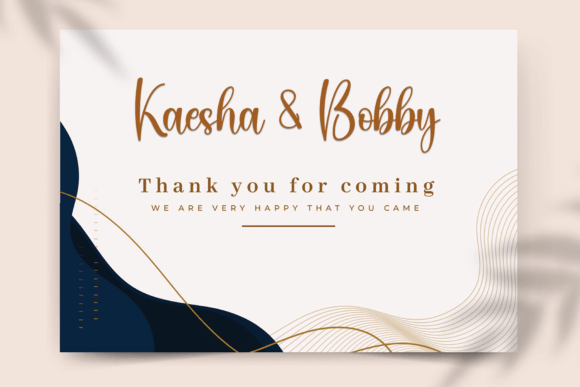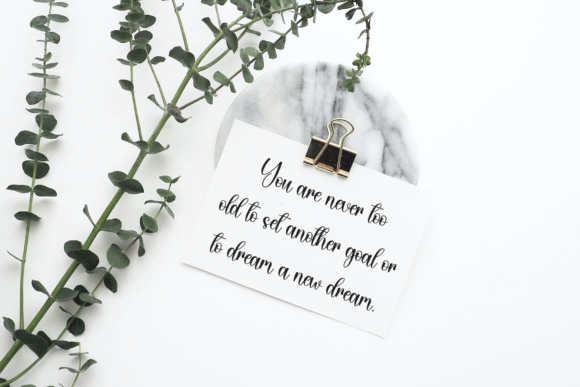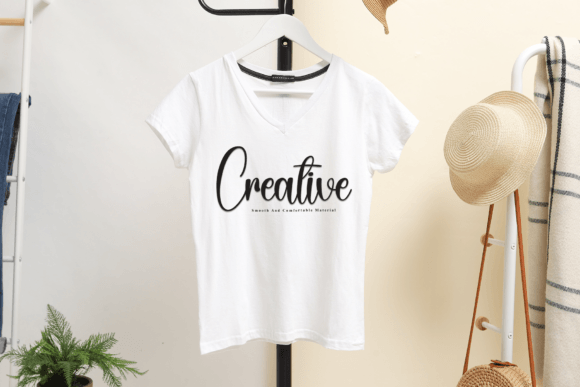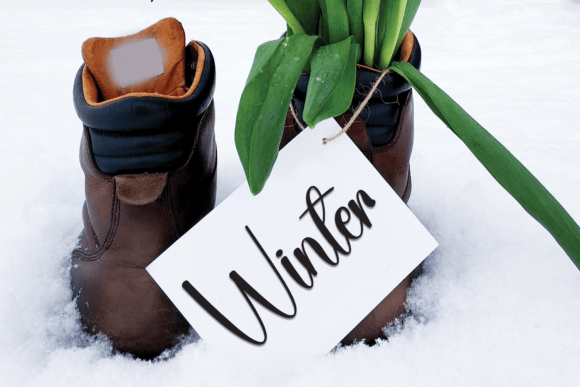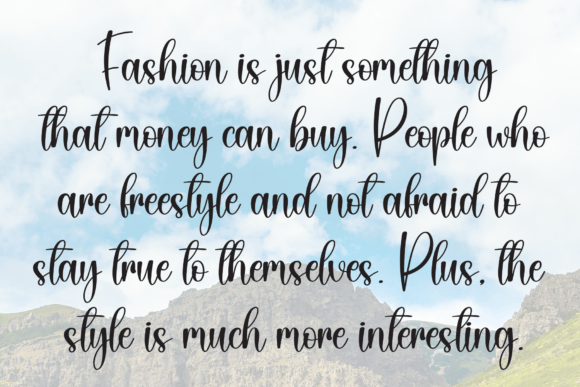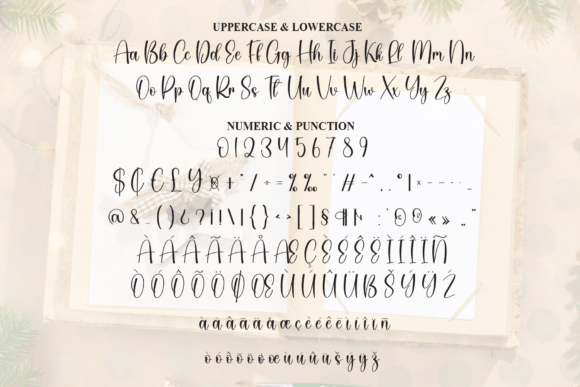
The Magic of Book Christmas Font: A Designer’s Delight
It’s the most wonderful time of the year, and I’m not just talking about the holiday season! As a designer, I’m always on the lookout for the perfect font to make my projects shine. Recently, I was working on a Christmas-themed invitation for a client, and I stumbled upon the stunning Book Christmas font. I was immediately smitten with its elegant, handwriting-like script that added a touch of sophistication to my design. In this article, I’ll share my experience with Book Christmas, its features, and how to make the most of it in your designs.
A Personal Design Moment: Finding the Perfect Font
I recall struggling to find the right font for my Christmas invitation project. I wanted something that would evoke a sense of luxury and festivity, but still be easy to read. After scouring through countless font libraries, I discovered Book Christmas. Its smooth, flowing lines and elegant script immediately caught my attention. I knew I had found the perfect fit for my project!
- ✅ Elegant and sophisticated script style
- ✅ Smooth, flowing lines that perfect for invitations and logos
- ✅ Versatile and can be used for a variety of design projects
- ⚠️ Limited availability of stylistic alternates
- ⚠️ May not be suitable for very large or very small font sizes
Book Christmas was designed by a talented typographer who wanted to create a font that would evoke the magic of the holiday season. Inspired by traditional Christmas cards and elegant handwriting, the designer crafted a font that’s both sophisticated and festive.
Q: What type of designs is Book Christmas best suited for?
A: Book Christmas is perfect for designs that require a touch of elegance and sophistication, such as invitations, logos, and holiday-themed designs.
Q: Is Book Christmas available in different font styles?
A: Book Christmas is available in a single font style, but it offers a range of OpenType features and glyphs that can enhance your design.